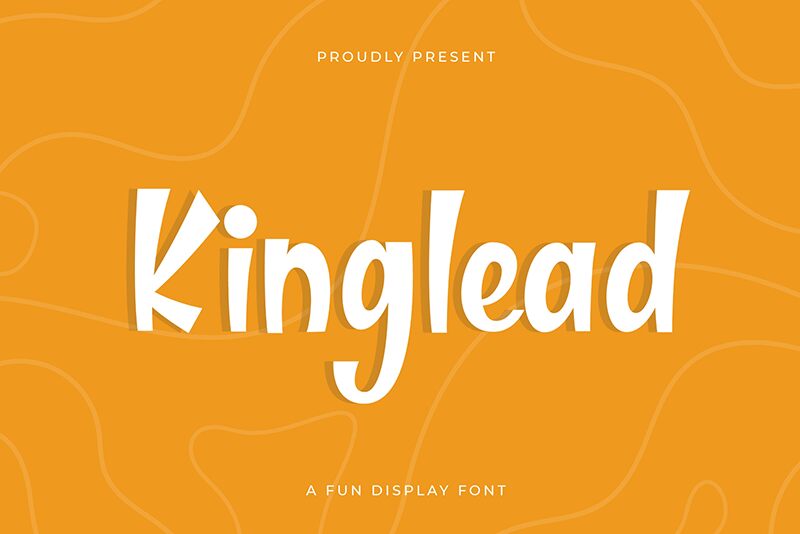
Kinglead, the whimsical display font from Almarkhatype, is perfect for projects that demand a fun and playful tone. Its semi-condensed width ensures maximum readability while optimizing space on your design. The comic style of Kinglead adds a touch of humor to branding materials, advertisements or any other creative project you have in mind. From kid-friendly websites to witty social media posts, this semi-bold font will make your message pop and capture the attention of your audience. Give Kinglead a try and see how its unique character can elevate your design game!